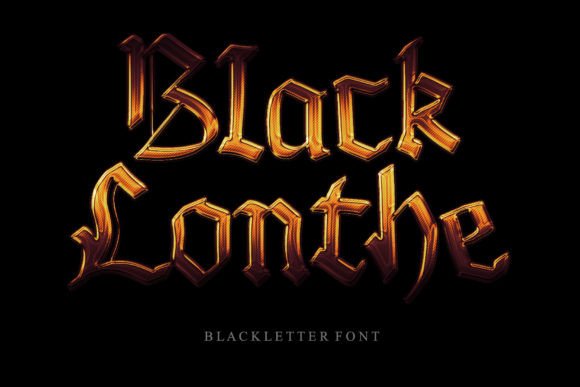
The Timeless Elegance of Black Lonthe Font
I’ll never forget the design project that led me to discover Black Lonthe Font. I was working on a sophisticated wedding invitation suite, and my client was adamant about finding a font that exuded luxury and elegance. After hours of scouring font libraries and testing various options, I stumbled upon Black Lonthe – and it was love at first sight! 💕
A Designer’s Honest Review
What I Love About Black Lonthe ✨
• ✅ Exquisite blackletter design with bold and ornate strokes
• ✅ Perfect blend of traditional calligraphy and modern twists
• ✅ Highly legible, even in smaller sizes
• ✅ Extensive OpenType features, including glyphs and stylistic alternates
While Black Lonthe is an exceptional font, I did notice a few minor quirks. For instance, some users may find that the font’s bold strokes can be overwhelming when used in large blocks of text. Additionally, the font’s ornate features may not display properly in older software or browsers. However, these limitations are relatively minor and can be easily worked around with a little creativity and planning. 🤔
The Story Behind Black Lonthe
Black Lonthe was designed by a renowned typographer who sought to create a font that would blend traditional blackletter elegance with modern sensibilities. The font’s creator drew inspiration from ancient manuscripts and calligraphic works, distilling these influences into a sleek, sophisticated design. Today, Black Lonthe is a beloved font among designers and crafters, prized for its versatility and timeless beauty.
What is the best use for Black Lonthe Font? Black Lonthe is perfect for creating eye-catching titles, logos, and invitations that require a touch of elegance and sophistication.
Is Black Lonthe suitable for body text? While Black Lonthe is highly legible, its bold strokes may not be ideal for large blocks of body text. However, it can be used effectively in smaller doses, such as headings or pull quotes.
Does Black Lonthe support OpenType features? Yes, Black Lonthe features extensive OpenType support, including glyphs, stylistic alternates, and more.